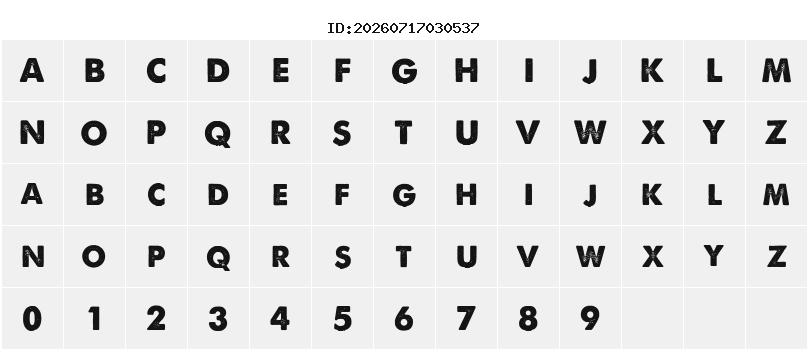
A Love of Thunder Preview
• Font Name: A Love of Thunder
• Full Font Name: A Love of Thunder
• Designer: S. John Ross
• Manufacturer: S. John Ross
About A Love of Thunder.ttf
A Love of Thunder.ttf is a modern, elegant sans-serif font designed for ultimate readability and visual harmony. Perfect for branding, headlines, web design, and print materials.